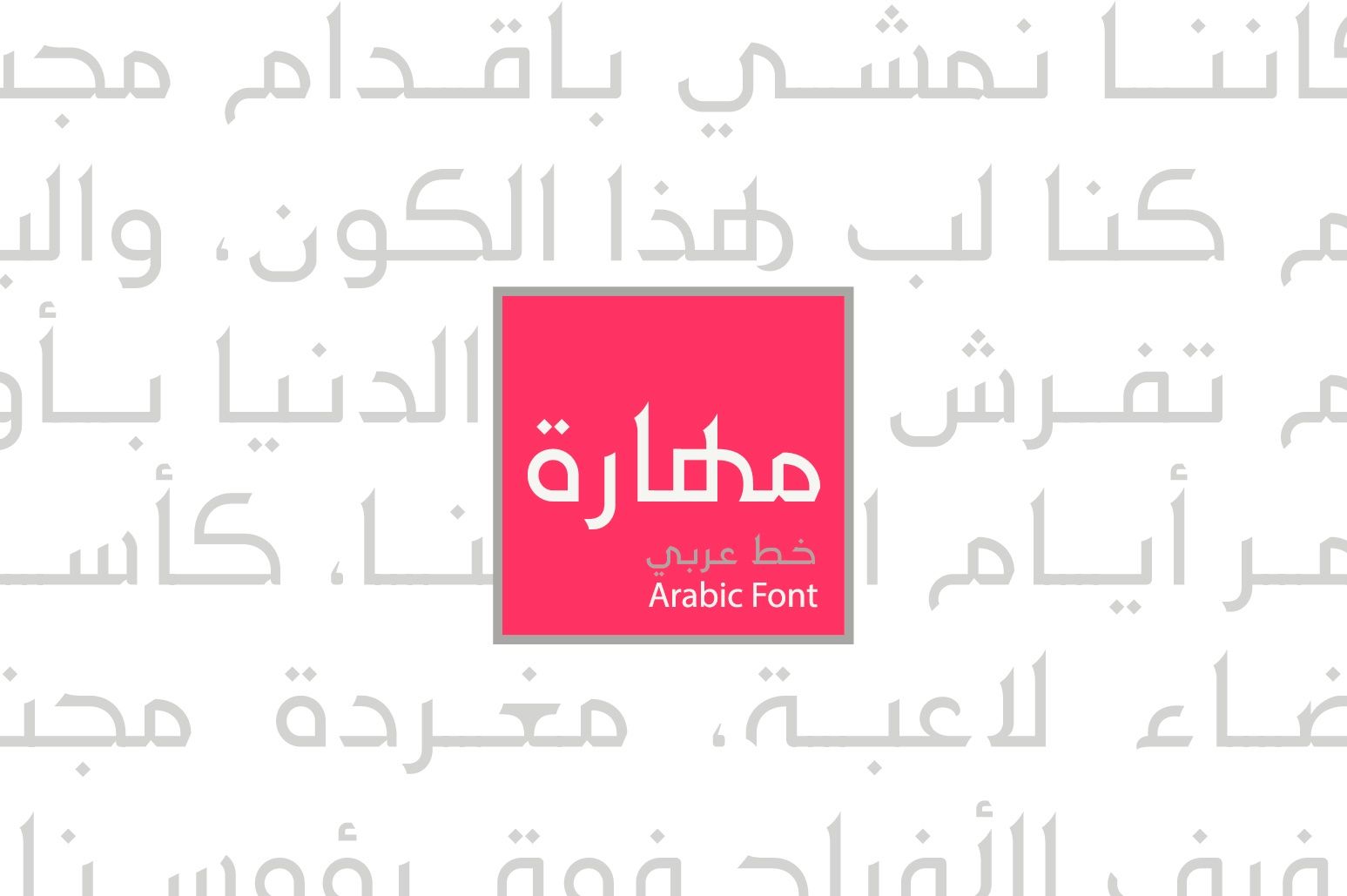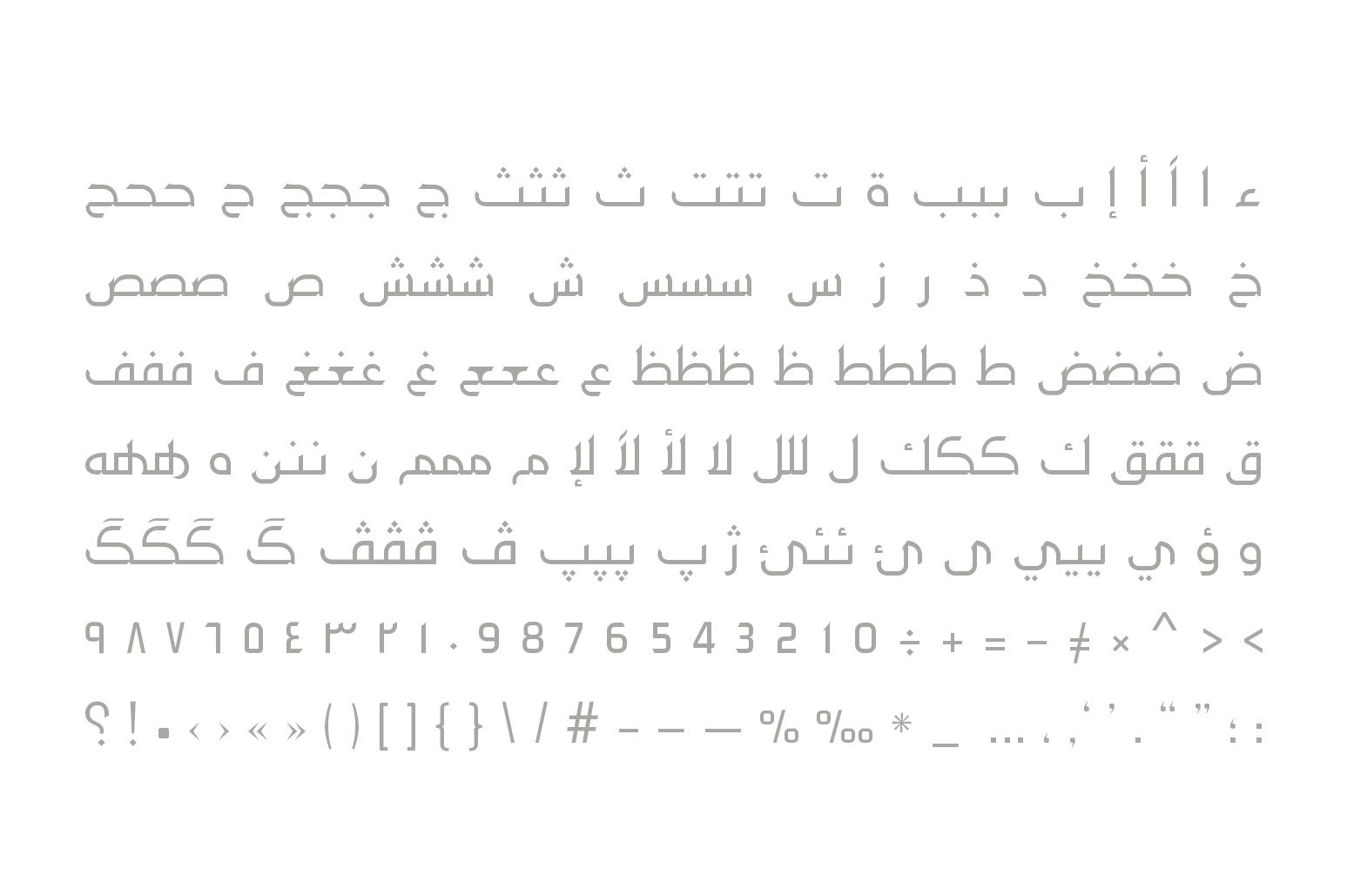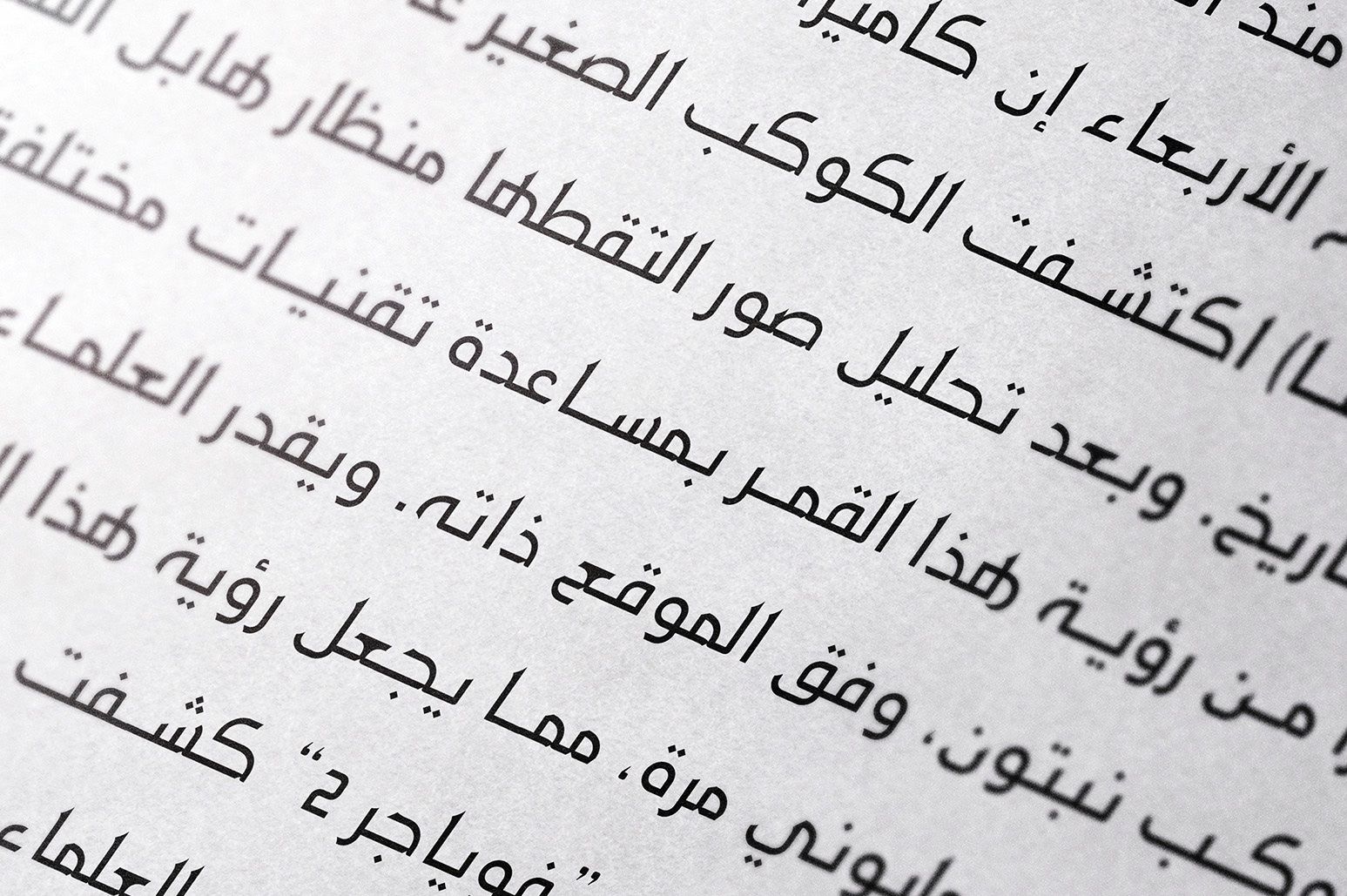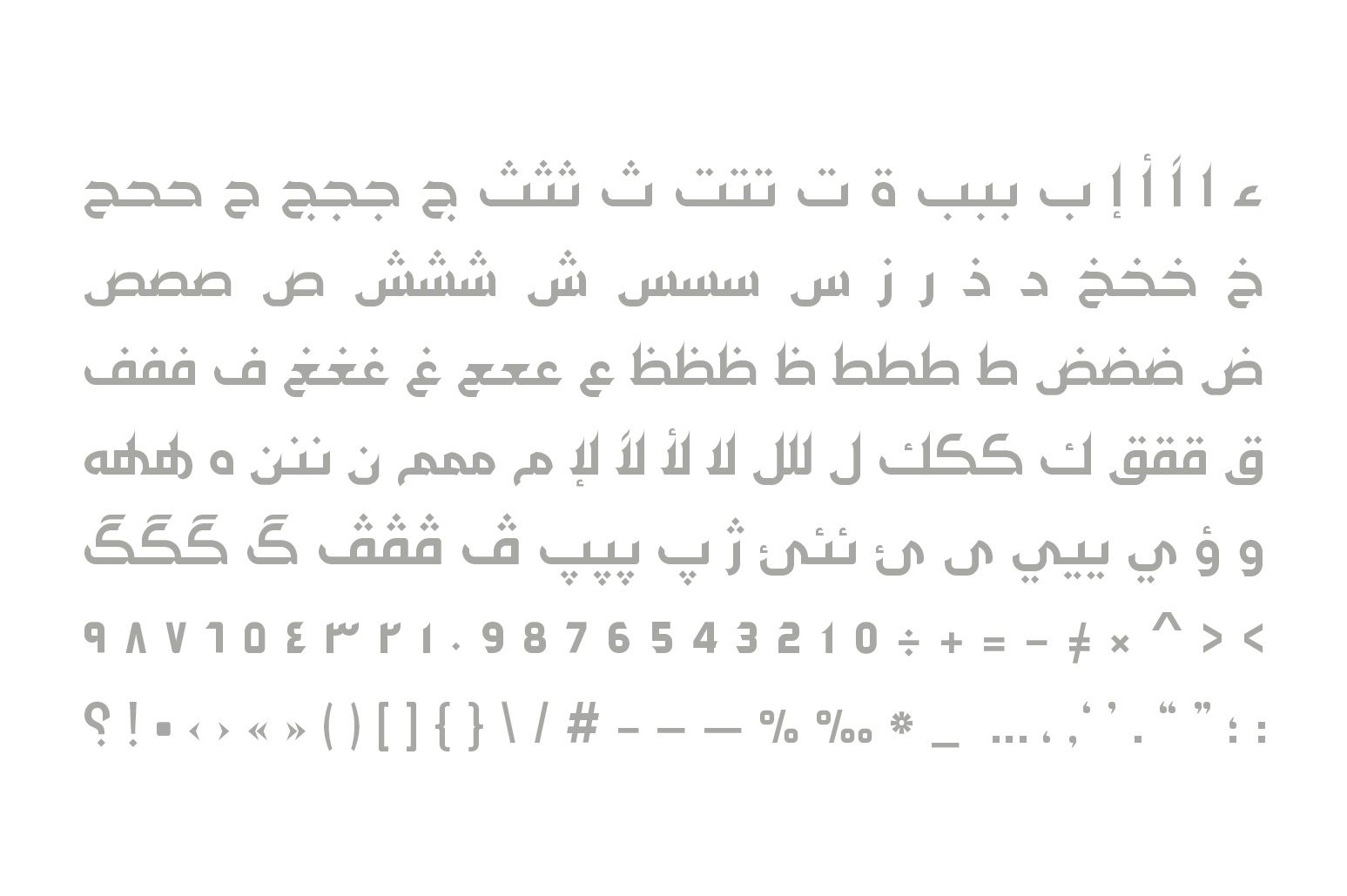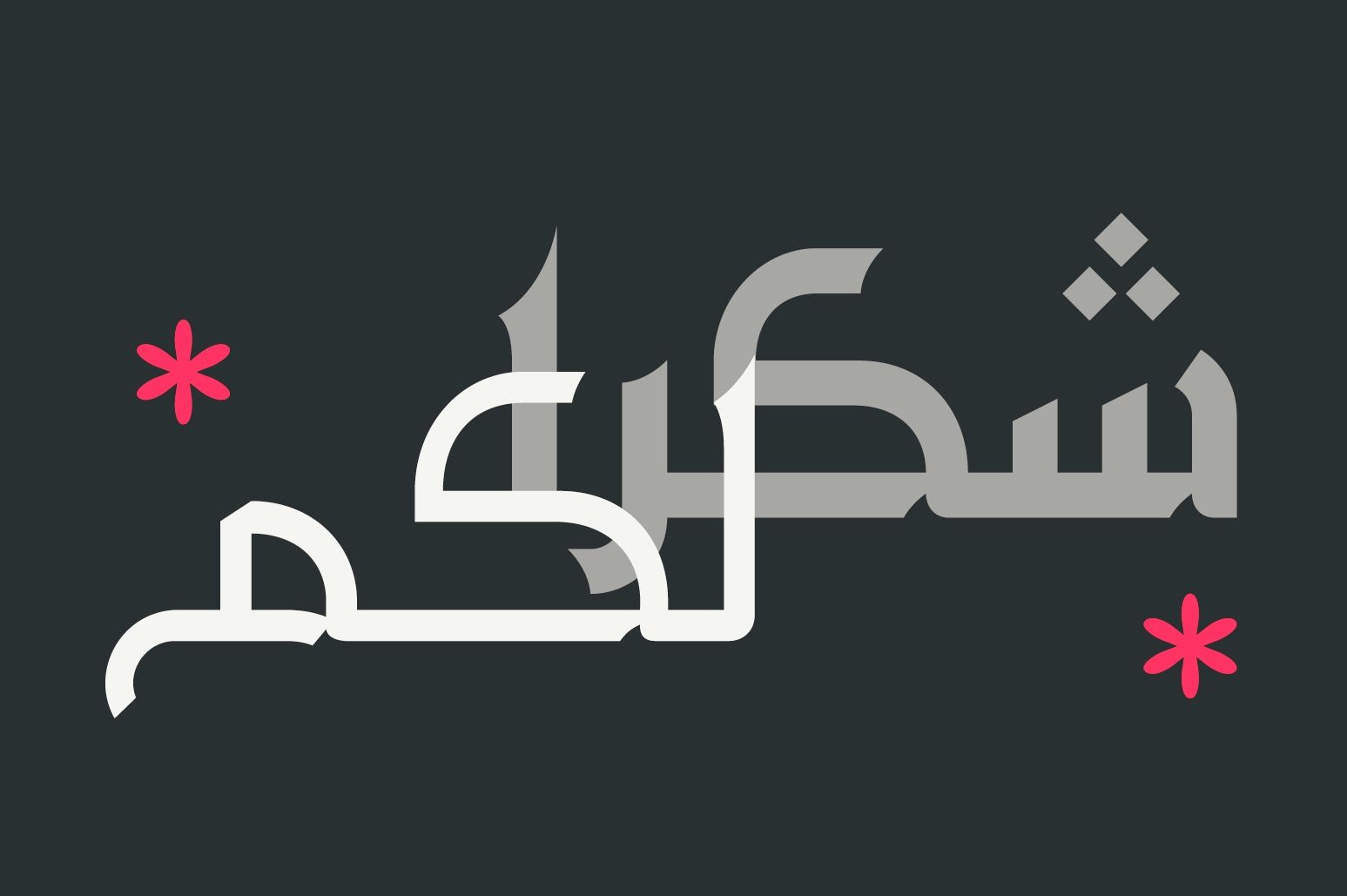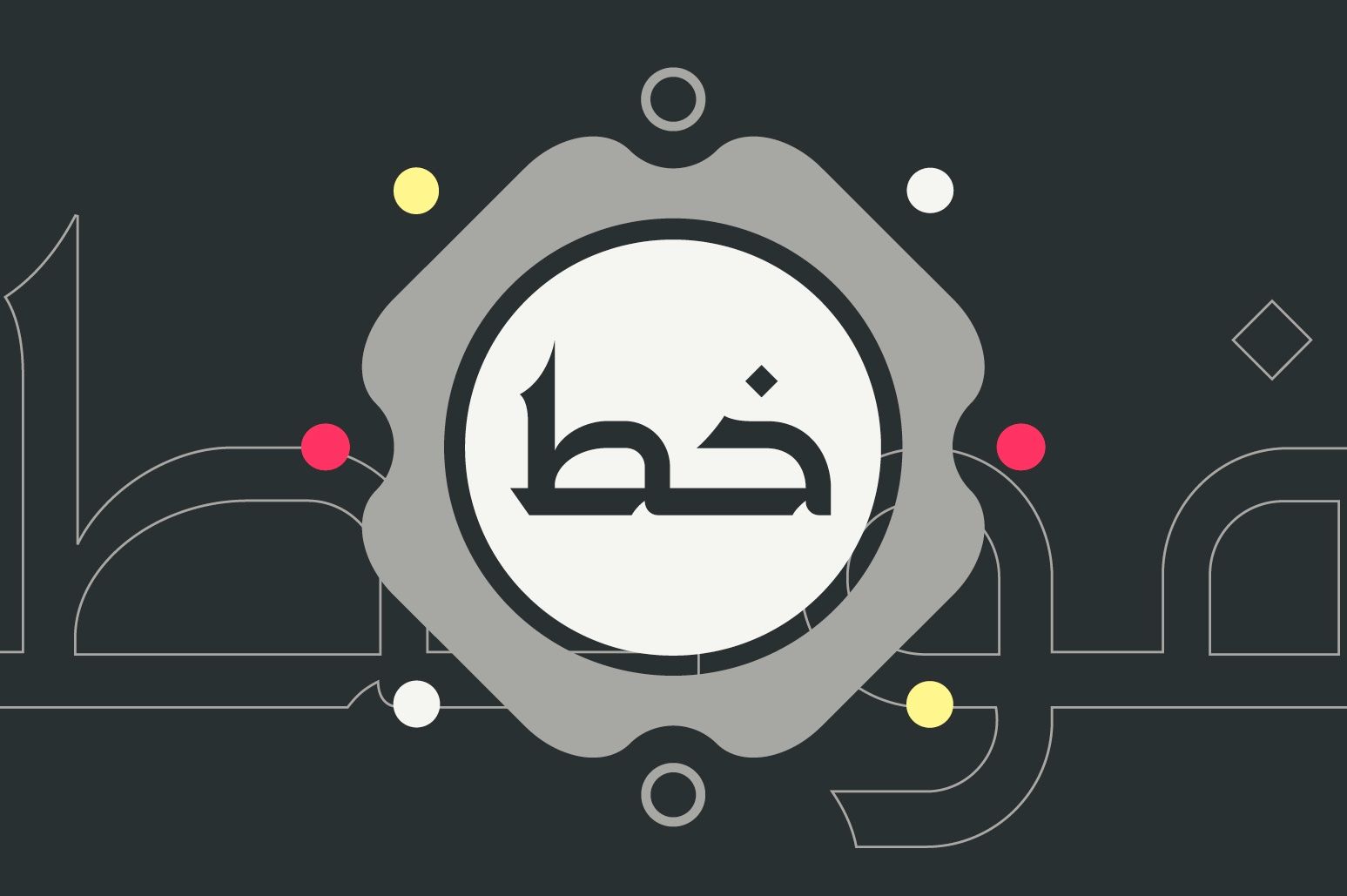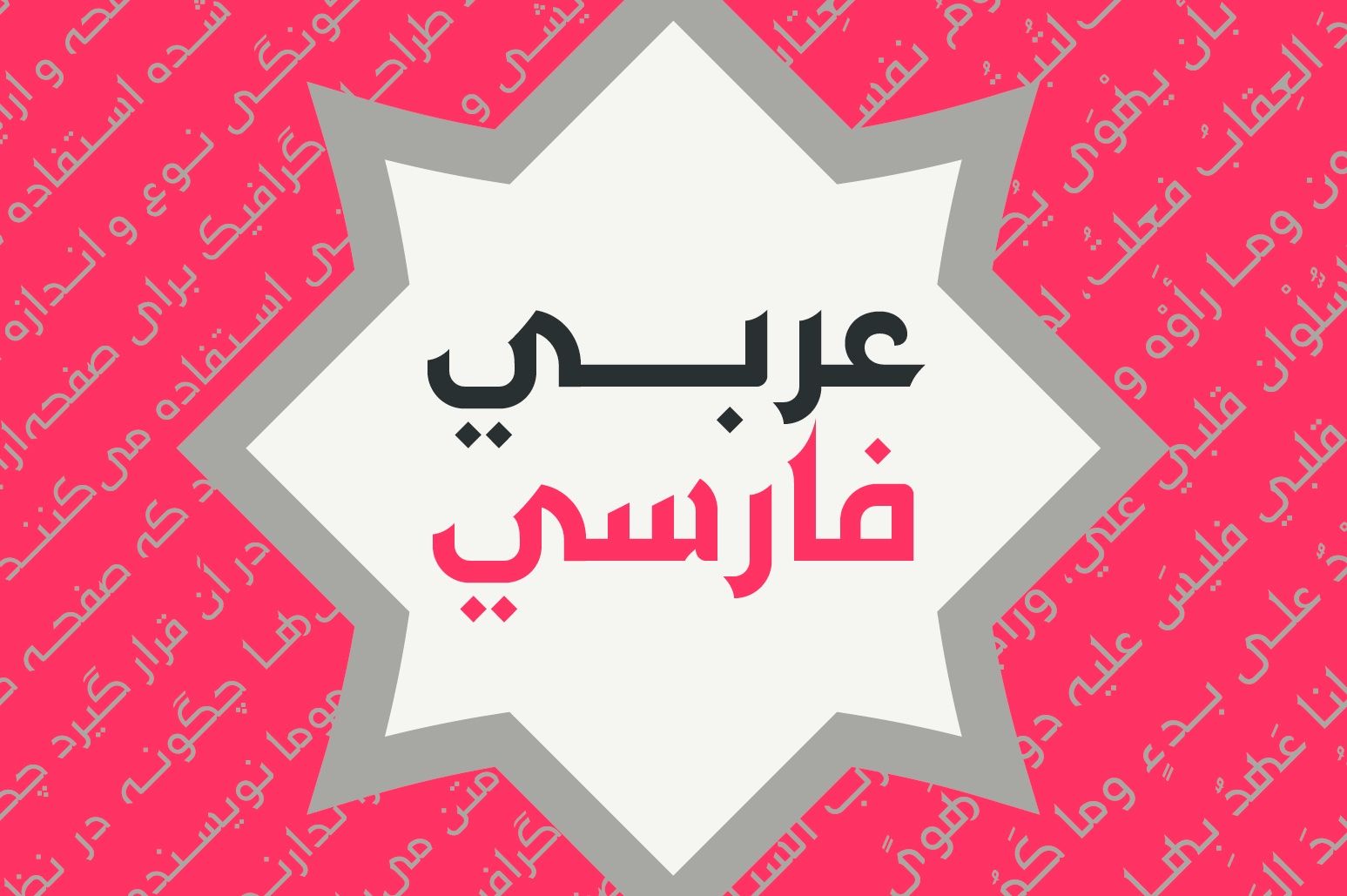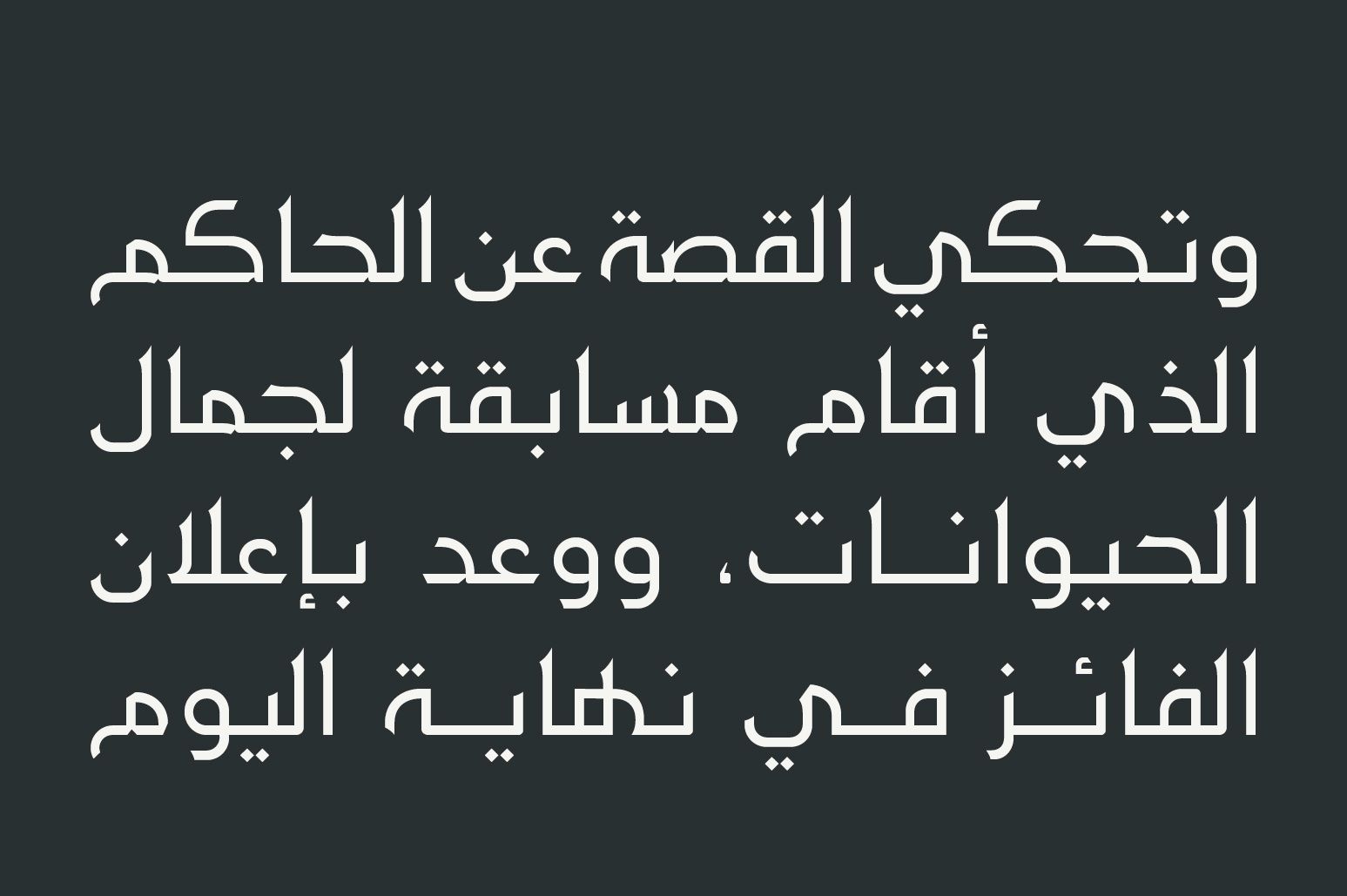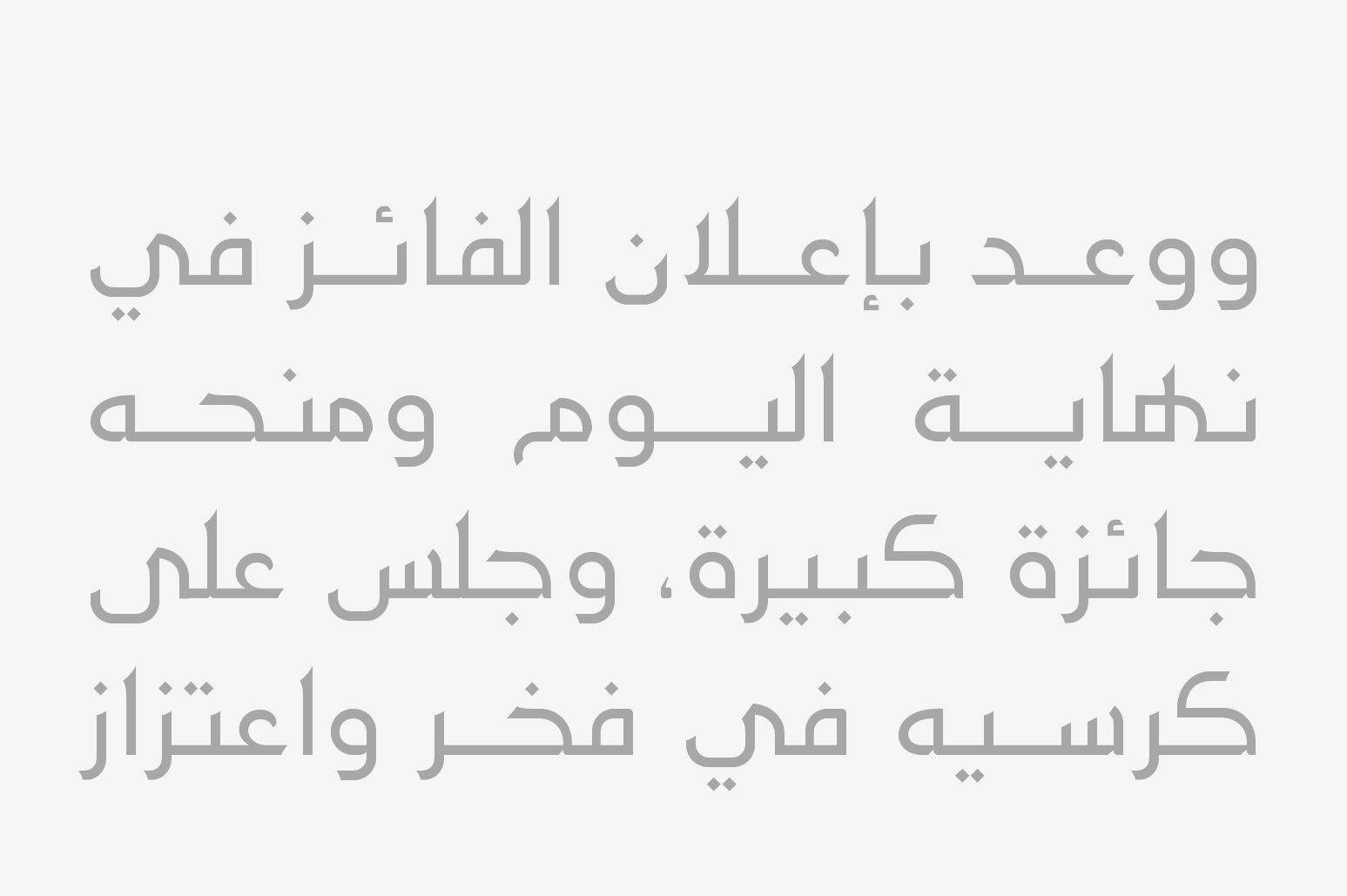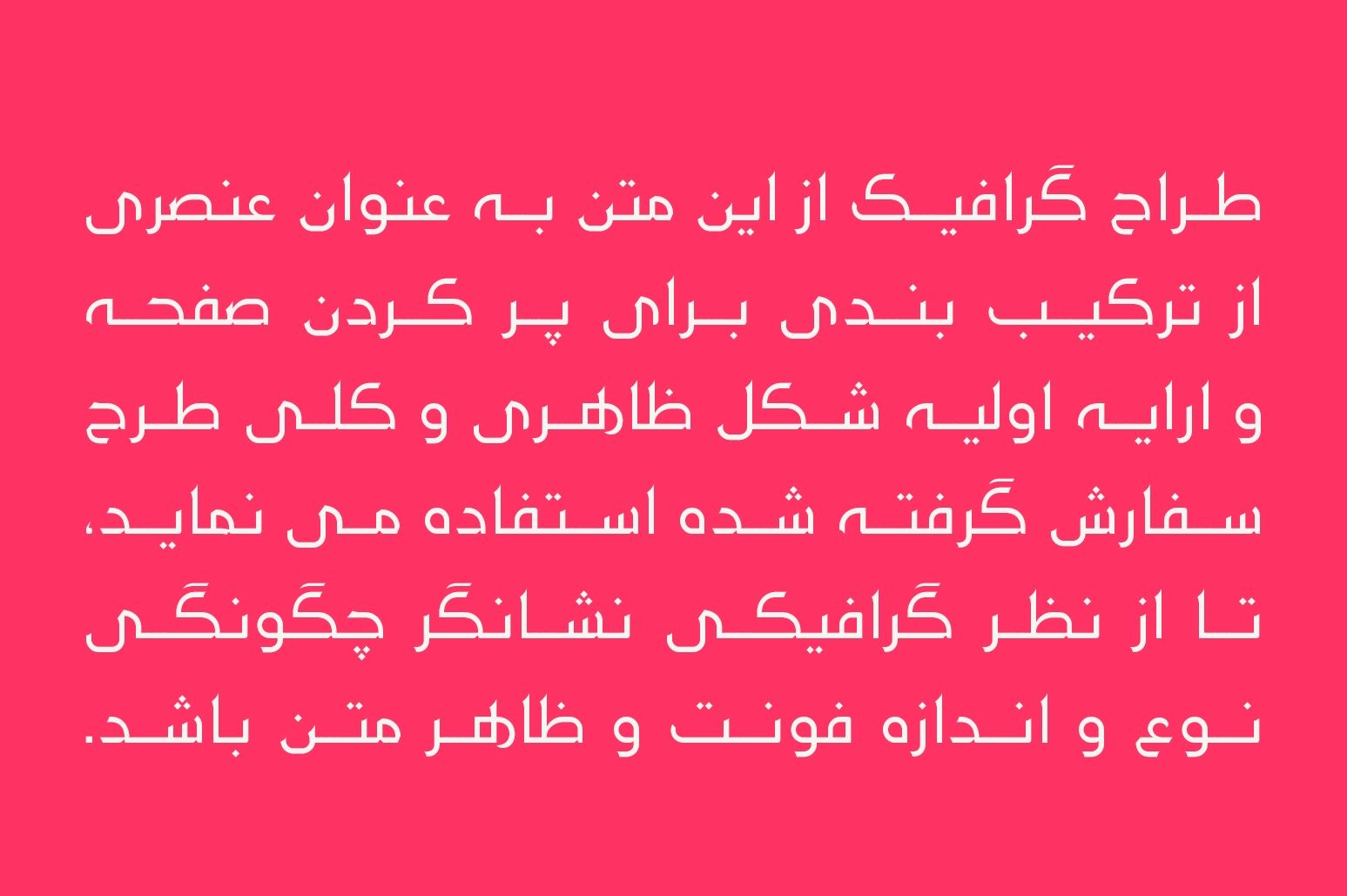
MarketplaceFontsMaharah - Arabic Typeface
Maharah is an Arabic typeface that blends traditional authenticity with contemporary elegance. The term Maharah translates to "Skill" in Arabic. This font is versatile for both web and print applications and is available in two weights: regular and bold.